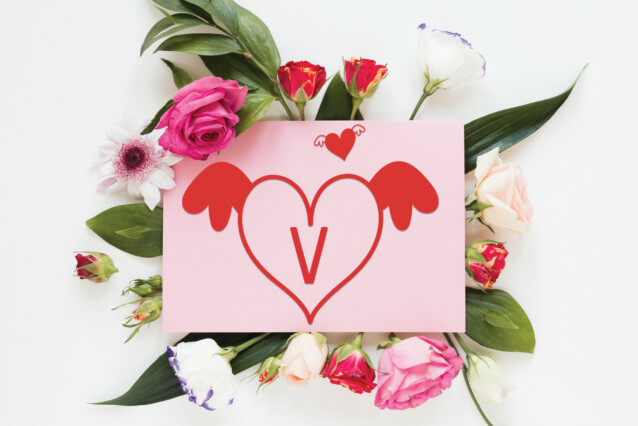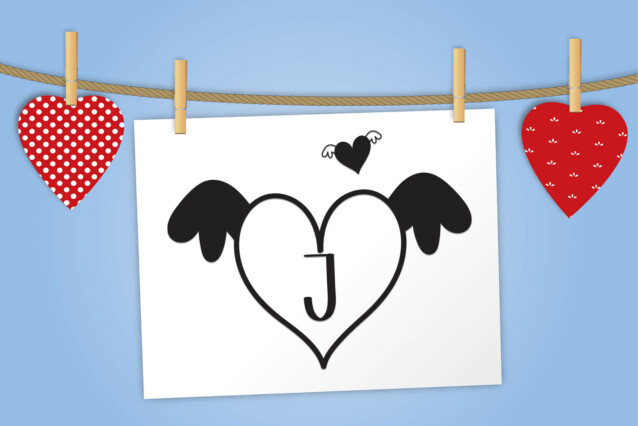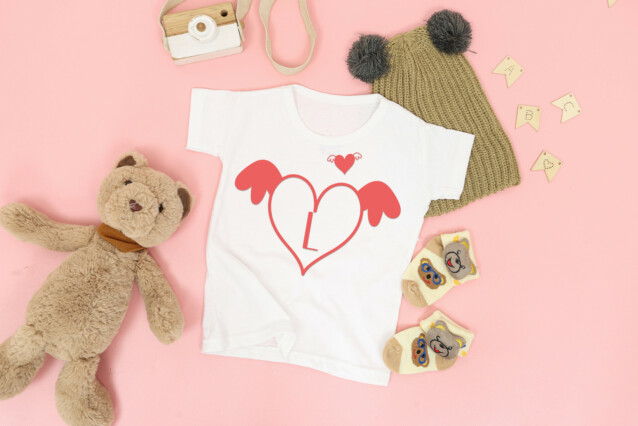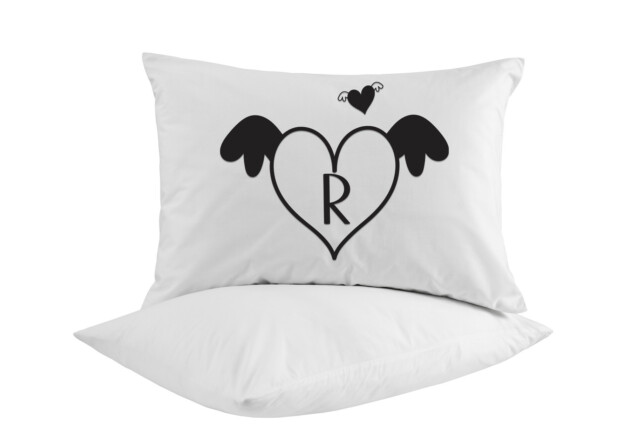
Heart Wings Display Font
Heart Wings Display Font is an organic and beautiful decorative font, featuring lovely ornaments. No matter the topic, this font will be an incredible asset to your fonts’ library, as it has the potential to elevate any creation.